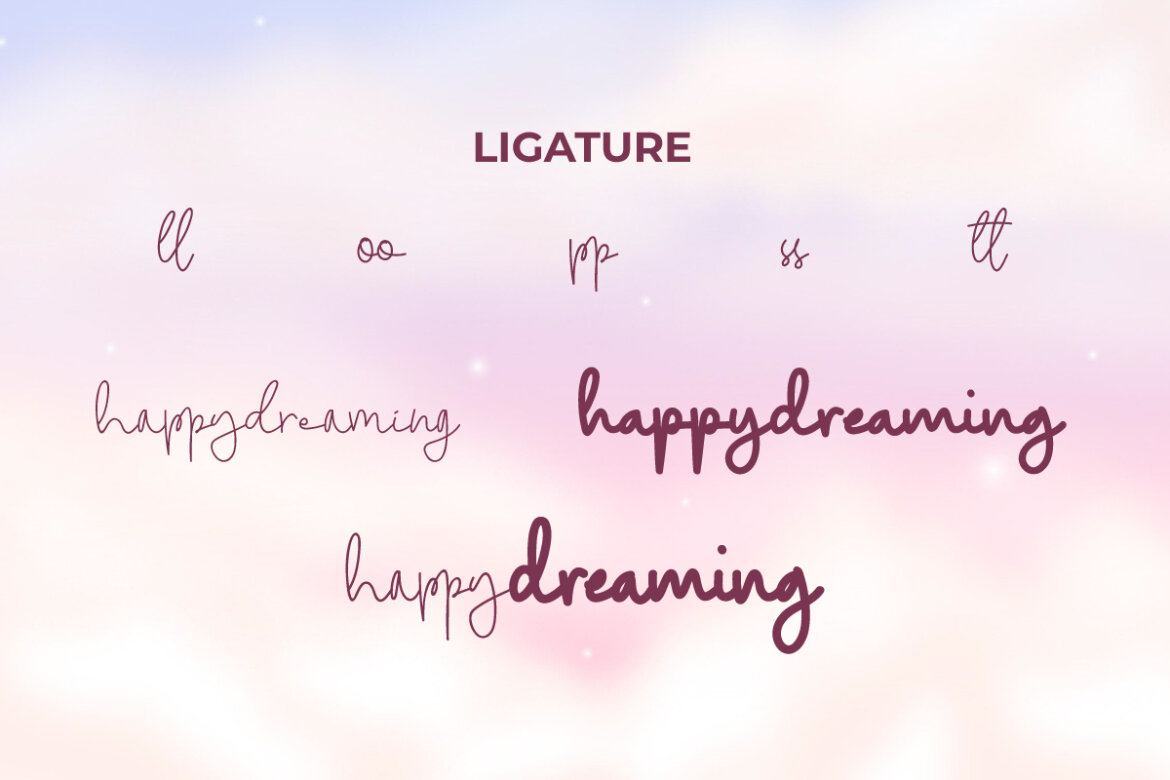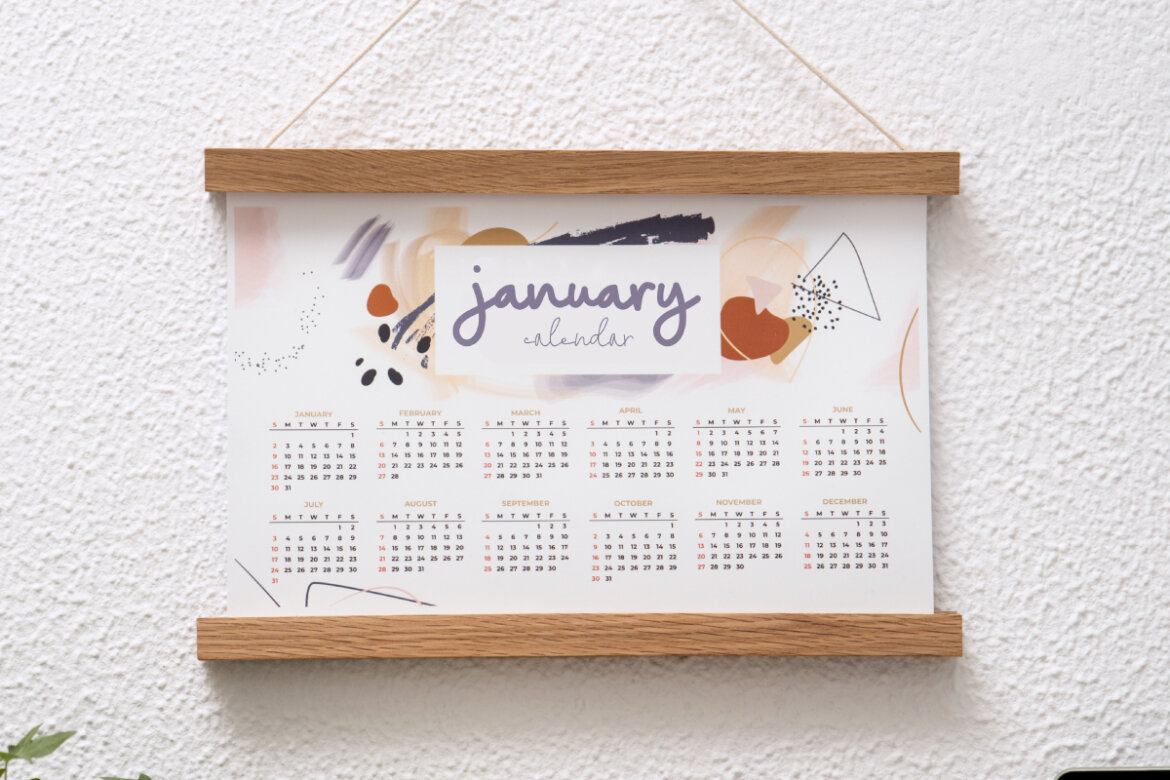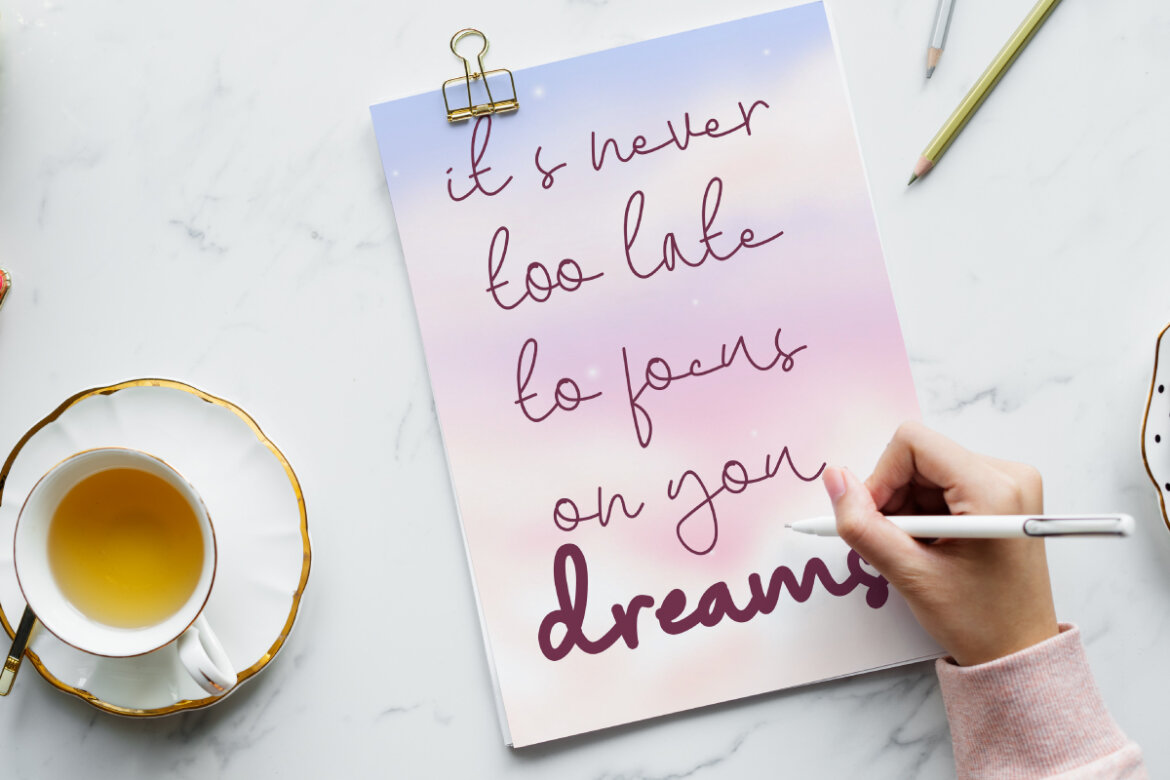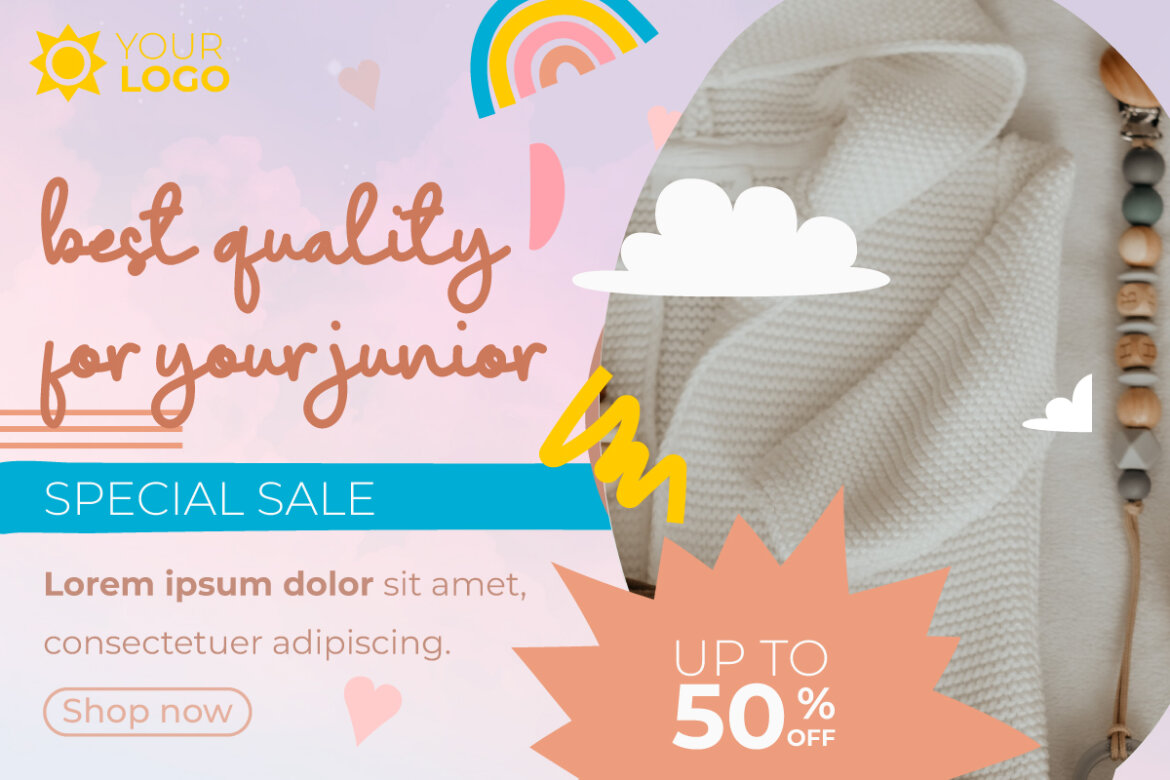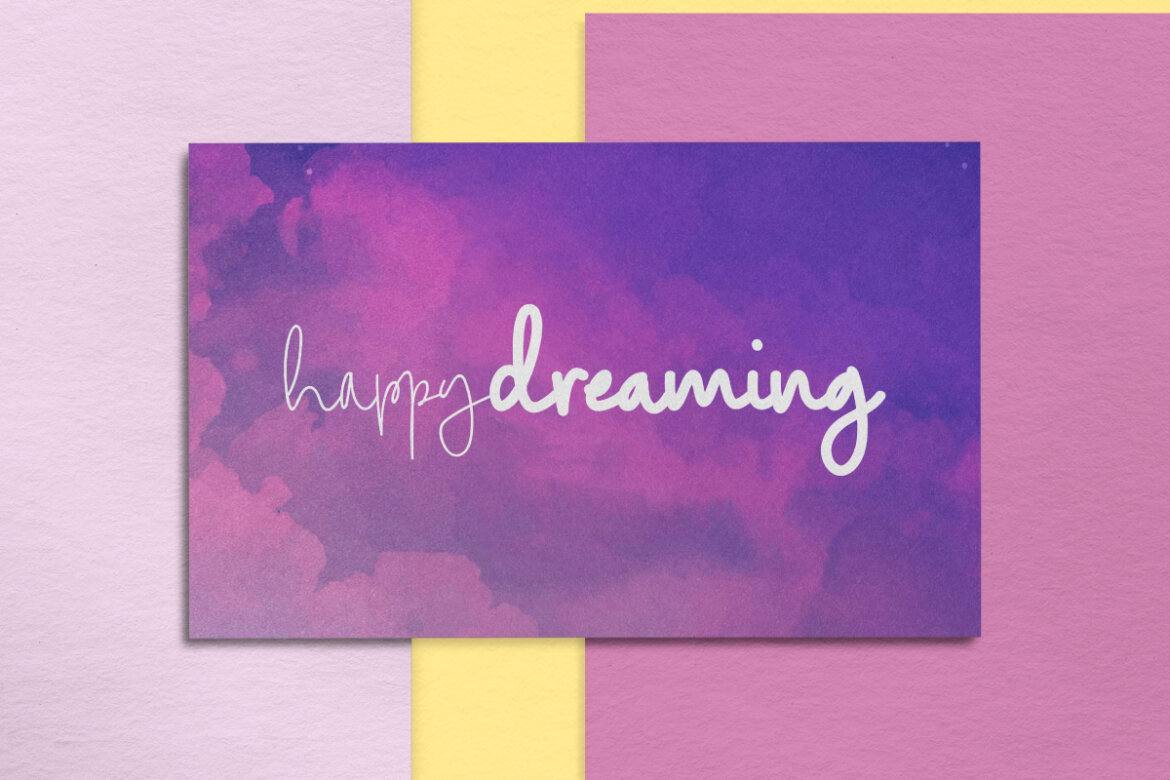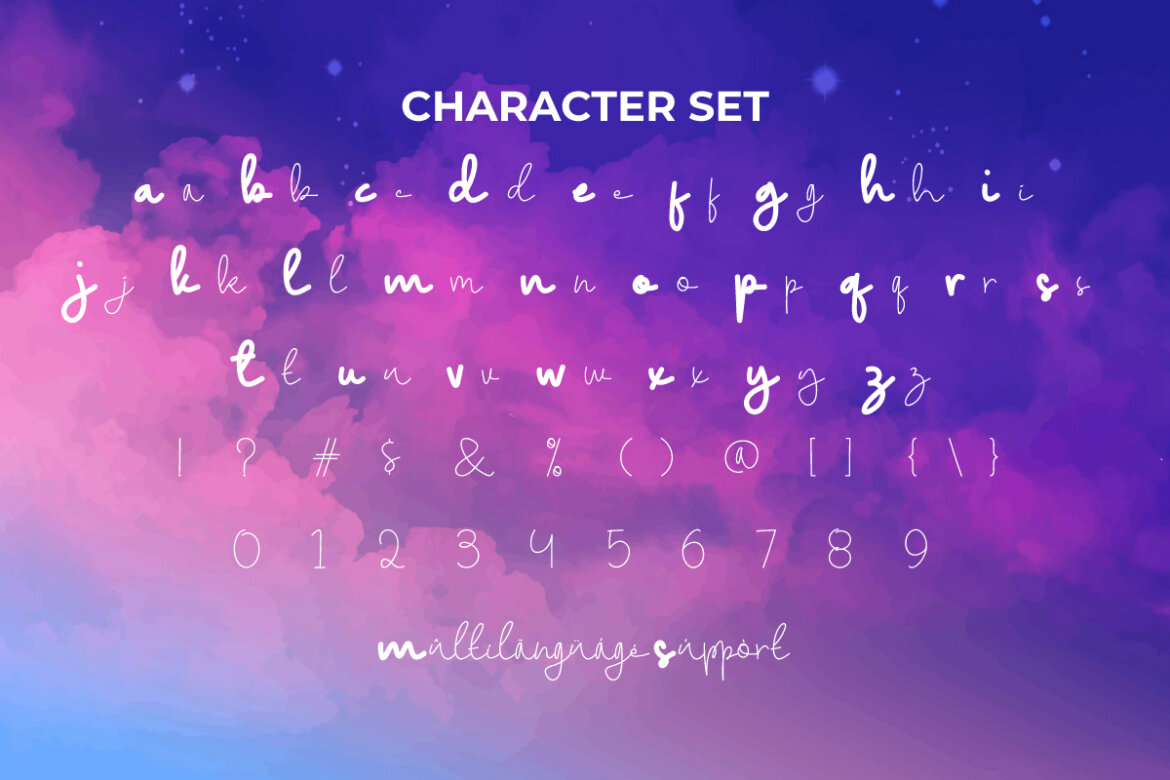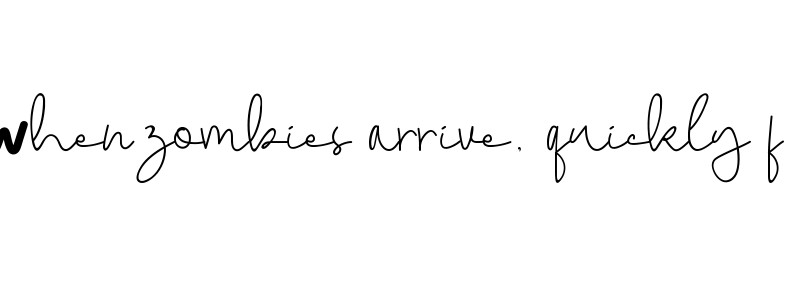
Happy Dreaming FREE Font
Happy Dreaming Font is a creative handwriting font with a unique concept. This beautiful and fun font uses lowercase characters all in different styles combined into one. The two types of brushes used when creating it give it a different look. It can be used together or separately. The font will be suitable for brochure, card designs, flyers, headers, logos, pamphlet, quotes, titles, websites, etc.
Happy Dreaming Font is a pretty font designed based on a fantasy and playful theme with added character ligatures. This handwritten font is here to add to your font collection and take your digital images to the next level! Can be used for any industry such as advertising, crafting, graphic design, printing, publishing, school design, writer, and many more.
Happy Dreaming Font comes with a complete set of Uppercase and Lowercase Basic Characters, Number, a large range of Punctuation, Symbol, and Ligatures. It has included multilingual character support ready to be used on Windows or Mac machines with a simple installation. It’s tested to work well in the Adobe Apps (Illustrator, Adobe InDesign, Adobe Photoshop) CorelDraw, and others. PUA Encode Characters means you can access all the characters easily – Fully accessible without additional design software.